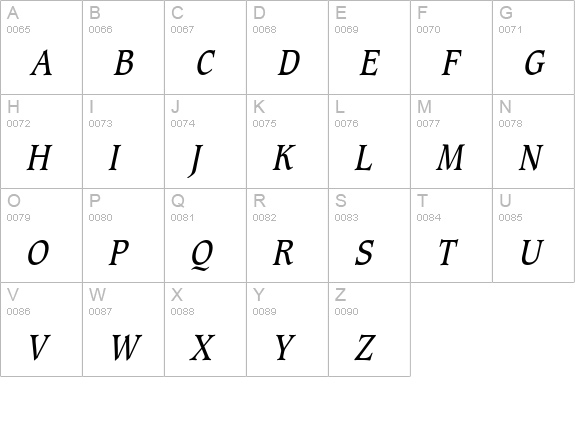
Clayton-Condensed Italic Font Details
Clayton-Condensed Italic is a distinctive, condensed-width, italic variant in the Clayton typeface family \xE2\x80\x94 well suited to design and typography projects.
Clayton-Condensed Italic font is a sleek and modern typeface that exudes sophistication and elegance. Its condensed design and italic style make it perfect for adding a touch of flair to any project. The clean lines and unique curves of this font give it a distinctive and stylish look that is sure to make a statement. What's even better is that Clayton-Condensed Italic font is available for free download at FontsMarket.com. This means you can easily access this stunning font and use it in your designs without any cost. Whether you're working on a professional project or a personal creative endeavor, Clayton-Condensed Italic font is a versatile and eye-catching choice that will elevate your work to the next level. Don't miss out on this amazing opportunity to enhance your designs with this beautiful font – download it for free today!